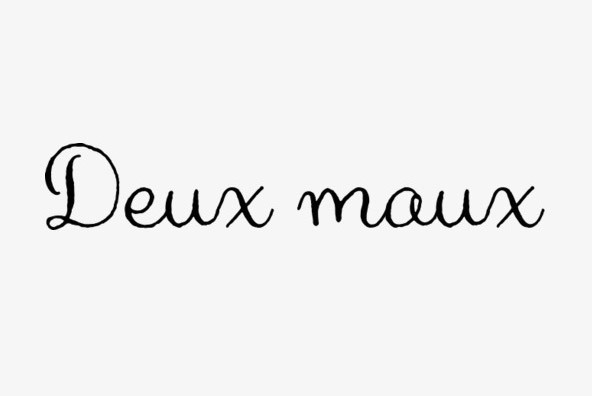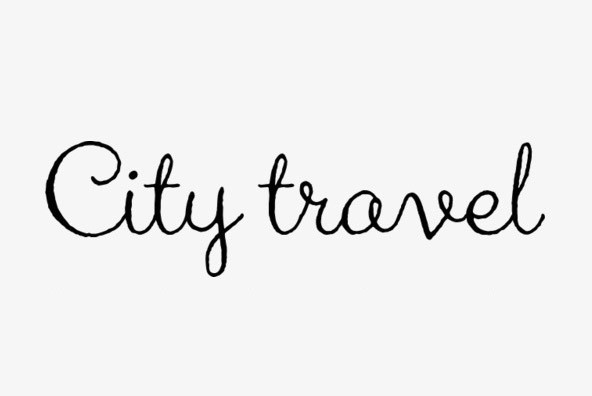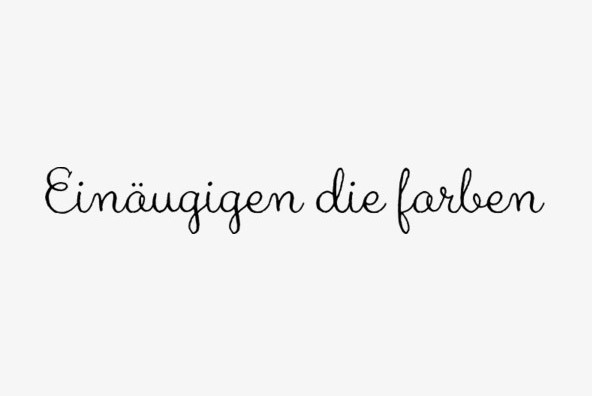
Aya Script
Be connected. Create ribbons of flowing text with Aya Script Ribbons. Warm, cheerful and handlettered in pen & ink, Aya Script Ribbons is an OpenType font with a healthy collection of alternates & ligatures. The ribbons automatically connect and mirror each other upon entry & exit or you may select individual ribbons segments to create a random look.Be free. Use Aya Script when your words need to stand alone. Aya Script is a friendly opentype font handlettered in pen & ink with a healthy collection of alternates & ligatures. She’s easy to read and loves stationery, books and logos.